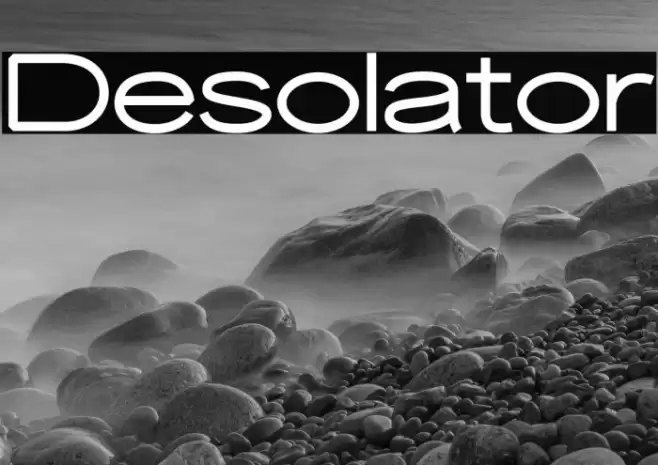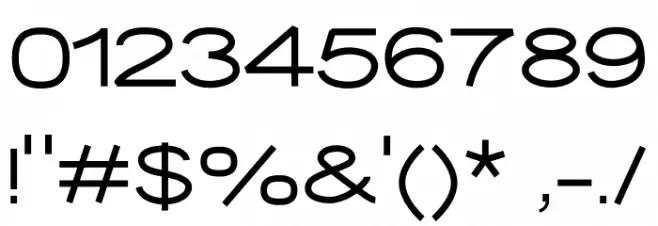
Desolator Font
Desolator Description
This font features a sleek and modern design with clean lines and a geometric structure. The characters are evenly spaced, providing a balanced and harmonious appearance. The uppercase letters are bold and commanding, while the lowercase letters maintain a consistent style with rounded edges. The numerals are clear and easy to read, making them suitable for various applications. Special characters are included, adding versatility to the font's use. Overall, this font exudes a contemporary and professional feel, making it ideal for digital and print media.
A sleek, modern font with geometric structure and clean lines from Regular fonts.
- Proposed Projects: Ideal for branding, digital media, advertising, and editorial design.